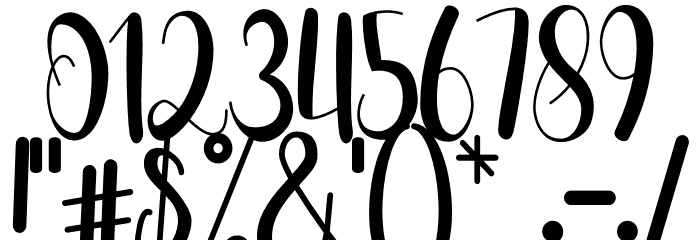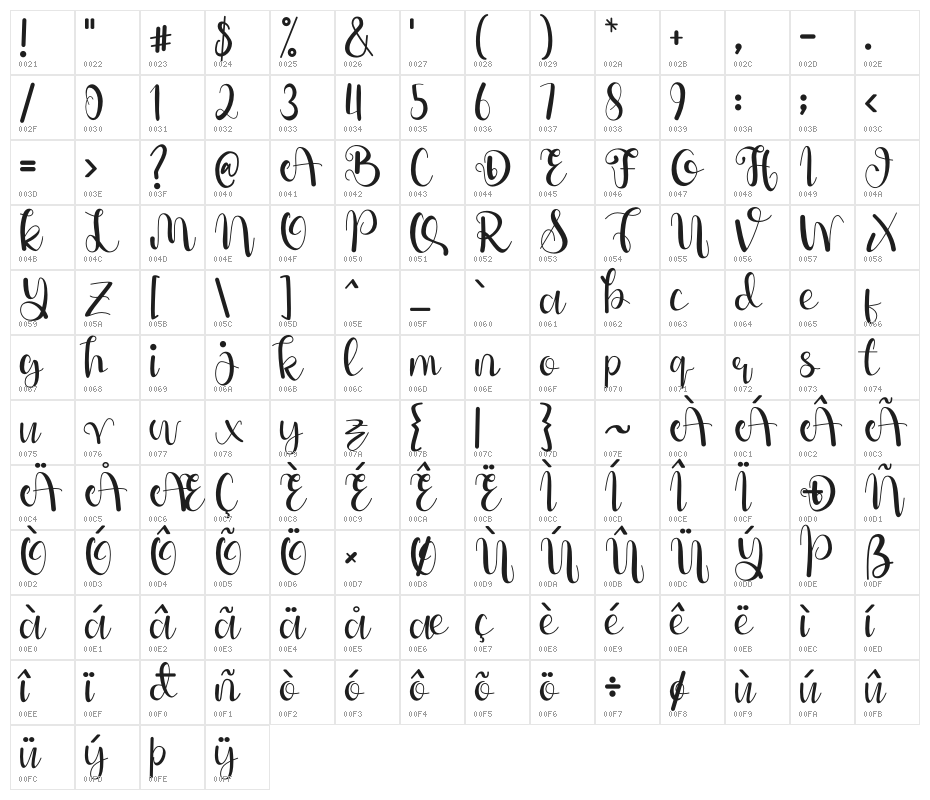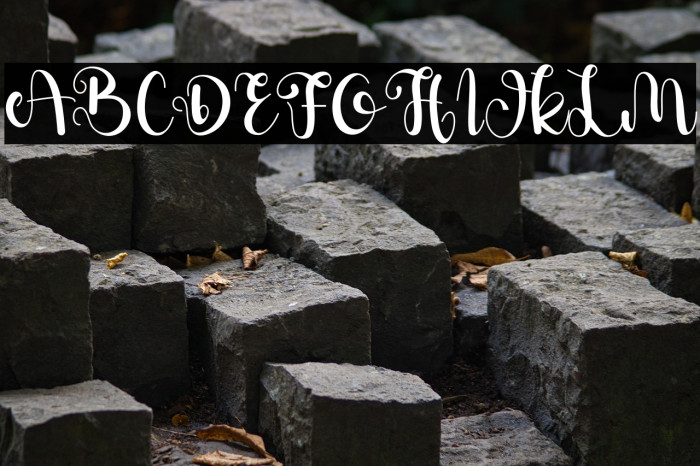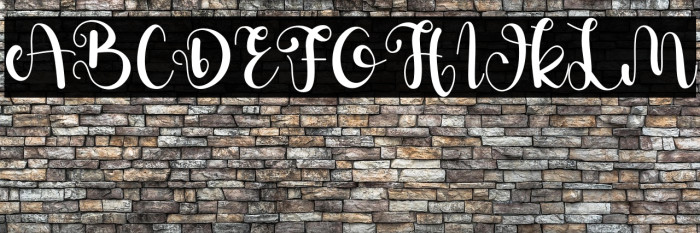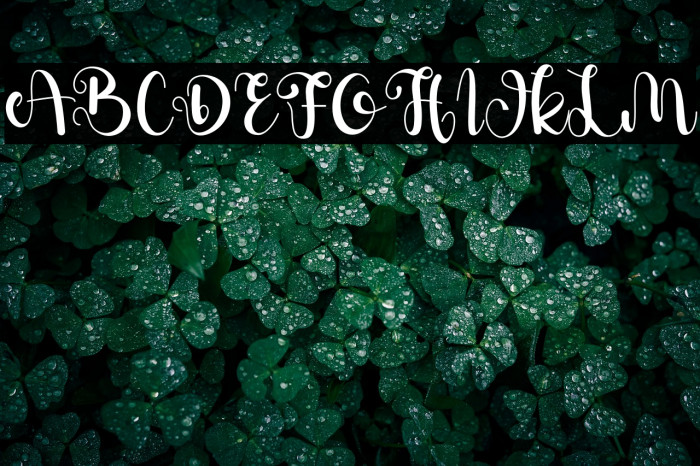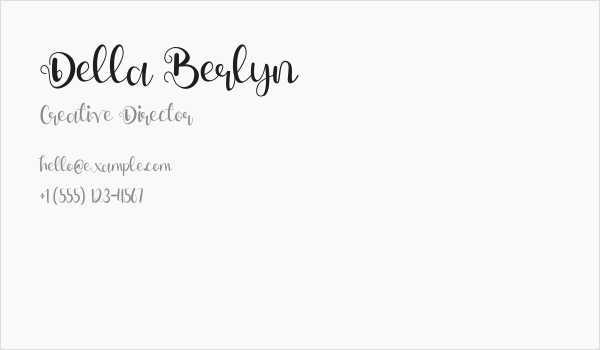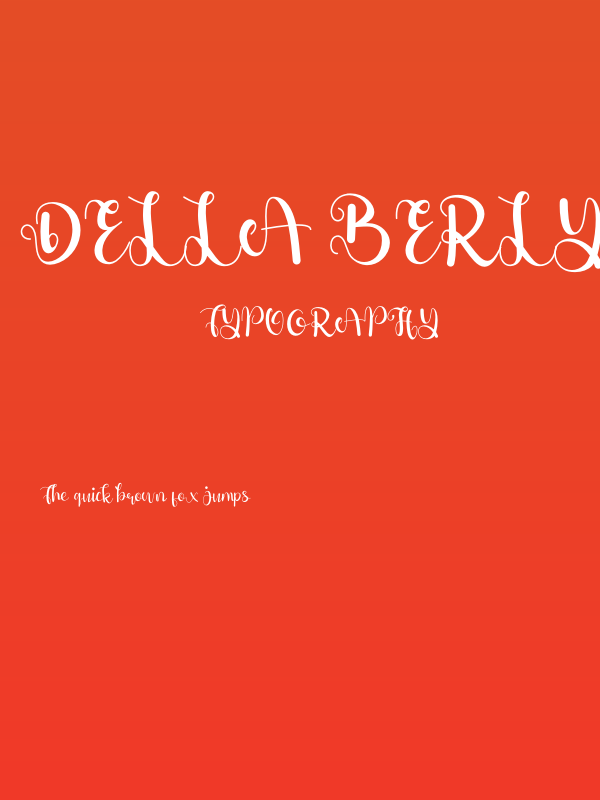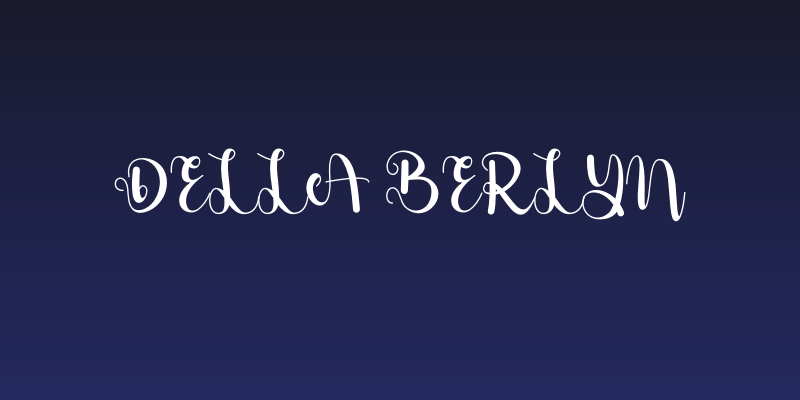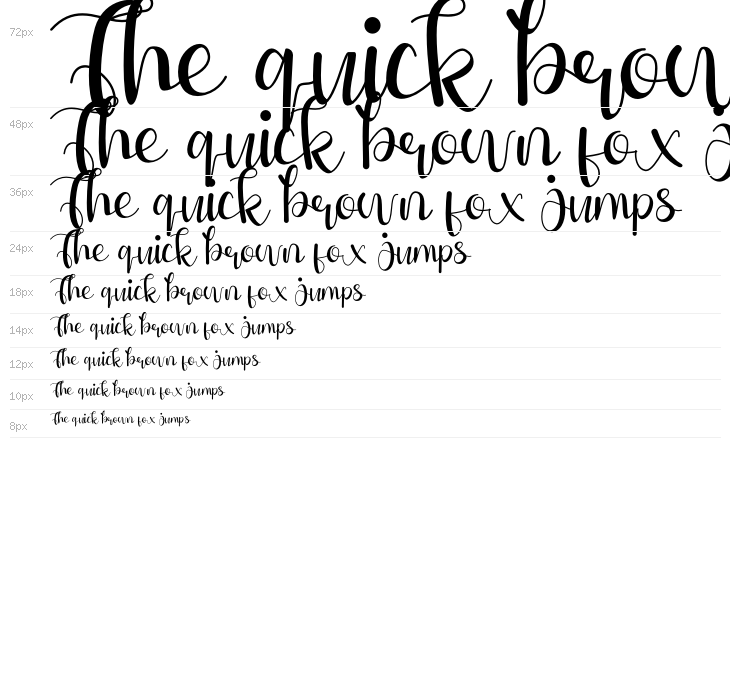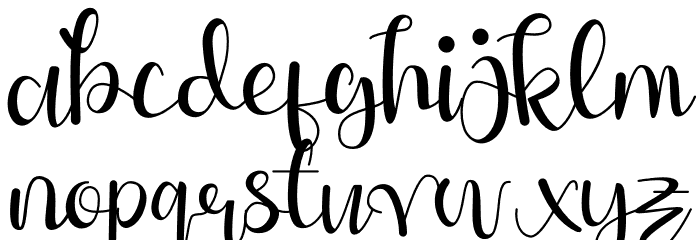
Della Berlyn Font
Della Berlyn Description
This font features a playful and artistic script style with a flowing, cursive design. The uppercase letters are characterized by elegant loops and swirls, giving them a whimsical appearance. The lowercase letters maintain a consistent style, with smooth curves and a slightly informal touch. Numbers and special characters are designed to match the overall aesthetic, with a creative flair that adds personality. The font's unique style makes it suitable for projects that require a touch of elegance and creativity.